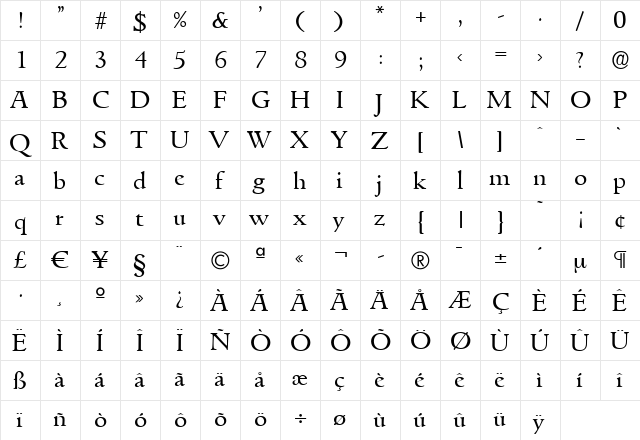
PatrickBecker Regular
Design Context for PatrickBecker Typeface
PatrickBecker offers clean, dependable letterforms without strong stylistic allegiance, making it a practical choice for designers who need flexibility.